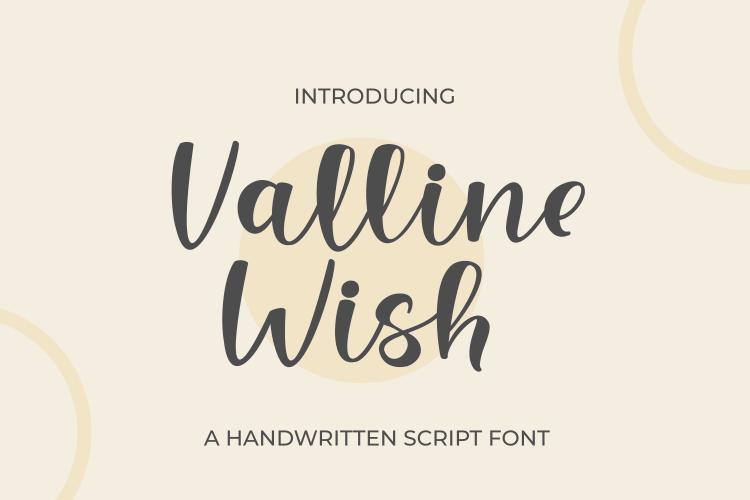
Valline Wish Font Description
Valline Wish feels equally charming and elegant. It looks lovely on wedding invitations, thank you cards, quotes, greeting cards, logos, business cards and every other design which needs a customized touch. This font is PUA encoded which means you can access all of the glyphs and swashes with ease!